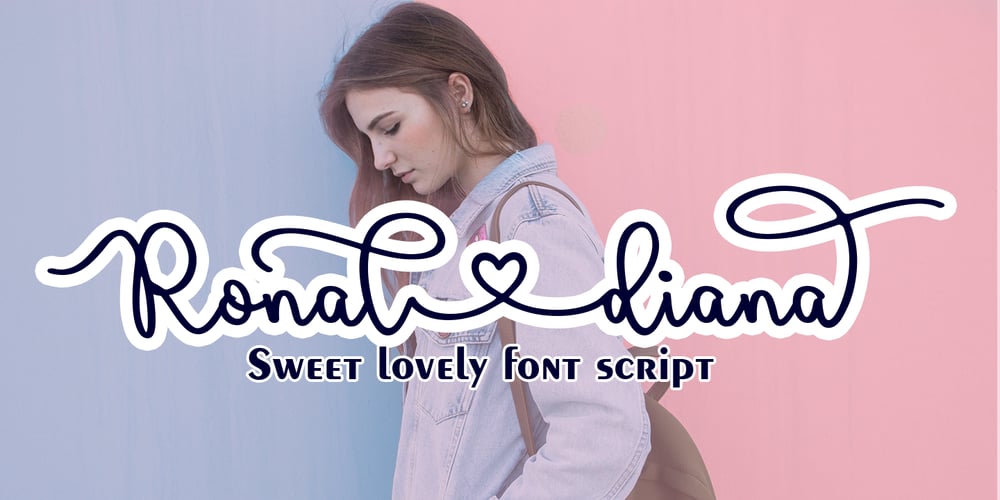
Ronal Diana Font Family was designed by Nasrullah and published by Sulthan Studio. Ronal Diana contains 1 styles and family package options. Ronald – diana is a handwritten font of modern letters, very simple and light. This font is also very cute … equipped with Alternative swash, and supports international languages as well., this font can also be connected by heart, it will be beautiful to look at.